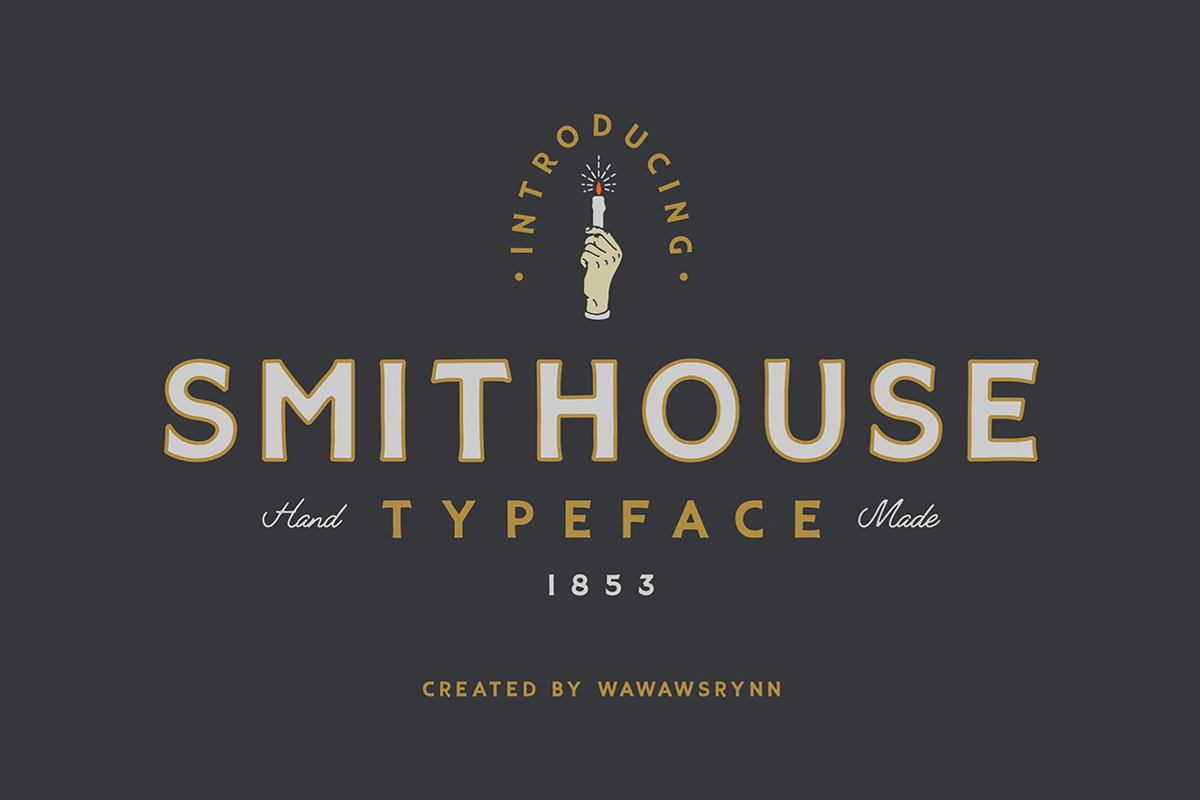
SMITHOUSE Font Free Download is a bold and modern typeface designed with strong, geometric lines and a clean, minimalistic style. Its unique letterforms and high-impact design make it perfect for creating eye-catching headlines, logos, posters, and branding materials. This font brings a contemporary, professional look that works well across a variety of digital and print projects.
Using the SMITHOUSE Font Free Download adds a sleek, modern touch to your typography. Whether you're designing for a tech brand, creating promotional materials, or crafting a standout logo, this font ensures your design has a fresh and bold aesthetic.